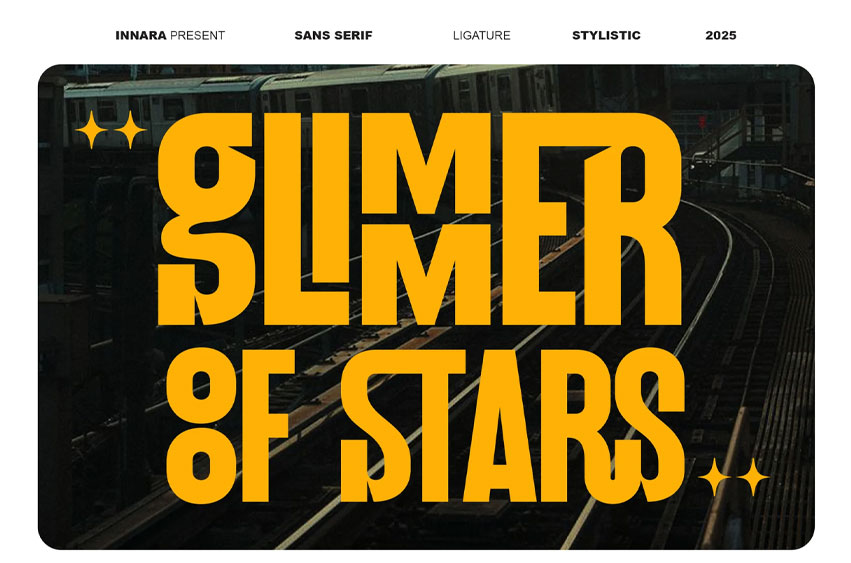
Glimer Of Stars Font
Glimer Of Stars Font is a sans-serif typeface designed to bring a sense of modernity, boldness, and strong character. Its tall, sleek letterforms combined with a striking contrast in thickness create a look that feels both dynamic and visually captivating.
Every detail of Gilmmer of Stars has been carefully crafted to balance strength with elegance, making it a perfect choice for attention-grabbing headlines. To enhance its versatility, this font also includes a set of unique and stylish ligatures, allowing designers to create typography that feels truly exclusive and distinctive.
With its bold personality, Gilmmer of Stars is an ideal fit for design projects that demand a standout and upscale aesthetic, such as posters, magazines, modern branding, logos, and creative campaigns. Its clean sans serif style, combined with tall proportions and sharp contrast, ensures that every piece of text appears striking, professional, and full of impact.
If you’re looking for a sans-serif font that is simple yet powerful, modern yet elegant, Gilmmer of Stars is the perfect choice to make every headline look stylish, confident, and unforgettable.